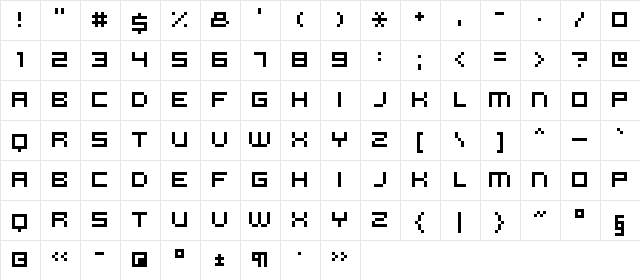
microN55 Regular Font Preview
microN55 Regular
Design Context for microN55 Typeface
microN55 offers clean, dependable letterforms without strong stylistic allegiance, making it a practical choice for designers who need flexibility.